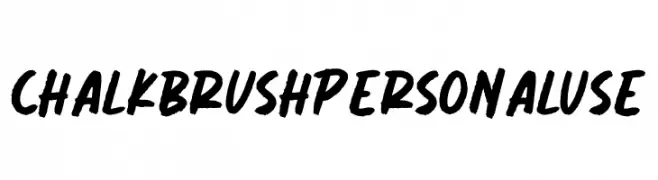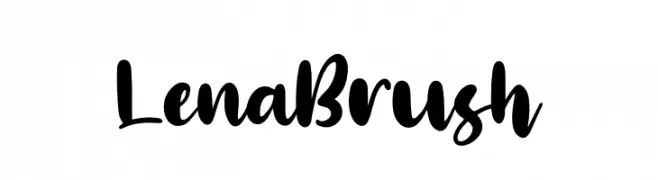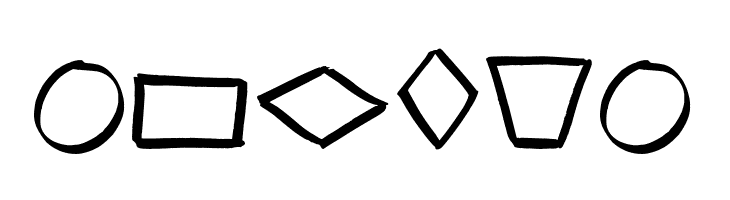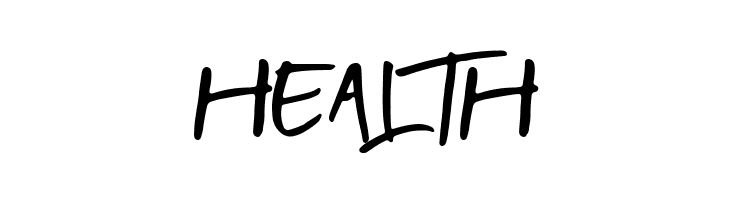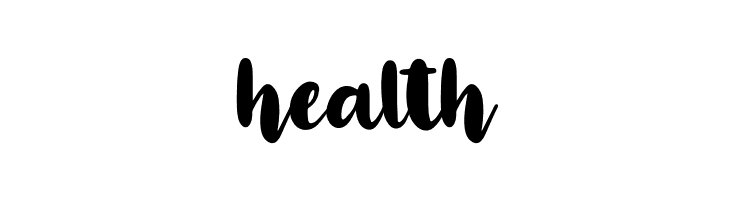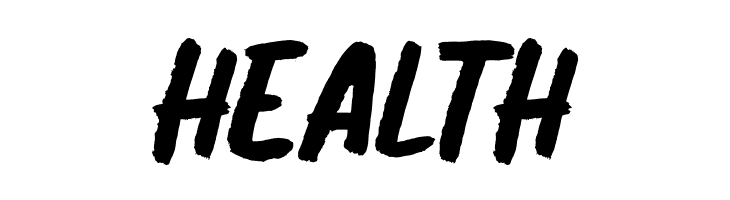
A playful, brush-stroke inspired font with a handcrafted feel.
A bold, expressive brush script font with fluid strokes and a hand-drawn feel.
A dynamic brush-style font with bold, expressive strokes and a hand-painted feel.
A bold, brush-style font with dynamic, hand-drawn strokes.
A casual, brush-style script font with a dynamic and artistic flair.
A dynamic, brush-stroke style font with a casual, artistic feel.
A bold, brush-style font with a casual, artistic flair.
A bold, expressive brush-style font with dynamic, handcrafted strokes.
A bold, expressive brush script font with dynamic strokes and artistic flair.
A dynamic, slanted script font with expressive brush-like strokes.
A dynamic brush script font with bold, slanted strokes and artistic flair.
A dynamic, brush-style script font with expressive, fluid strokes.
An expressive, brush-like font with dynamic strokes and artistic flair.
A bold, brush-stroke style font with dynamic and artistic flair.
A dynamic and fluid script font with brush-like strokes.
A bold, dynamic brush-style font with expressive strokes.
A bold, brush-style font with a playful, artistic flair.
A dynamic, brush-style font with expressive, fluid strokes.
A bold, brush-textured font with a rugged, handcrafted appearance.
A cursive, brush-style font with a flowing, handwritten appearance.
A bold, brush-style font with dynamic, slanted characters.